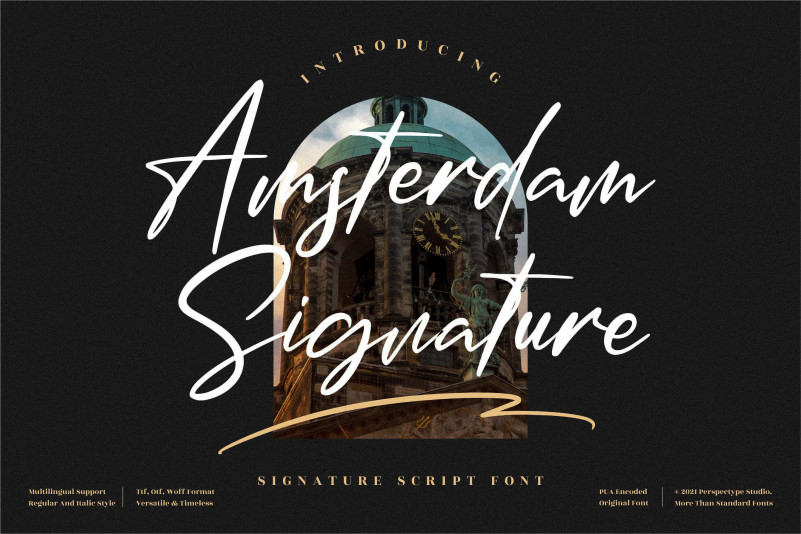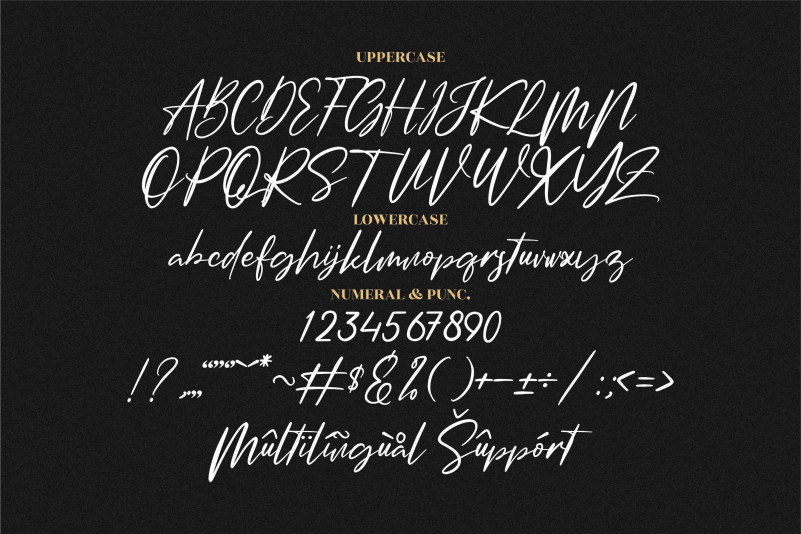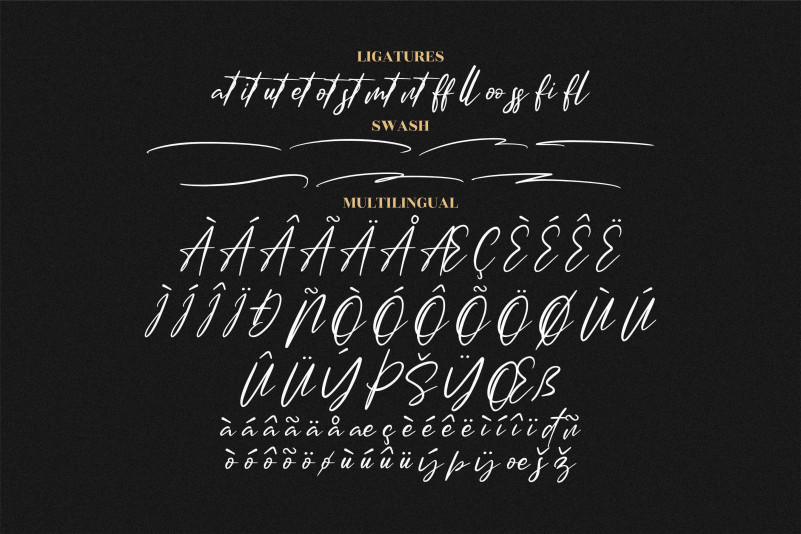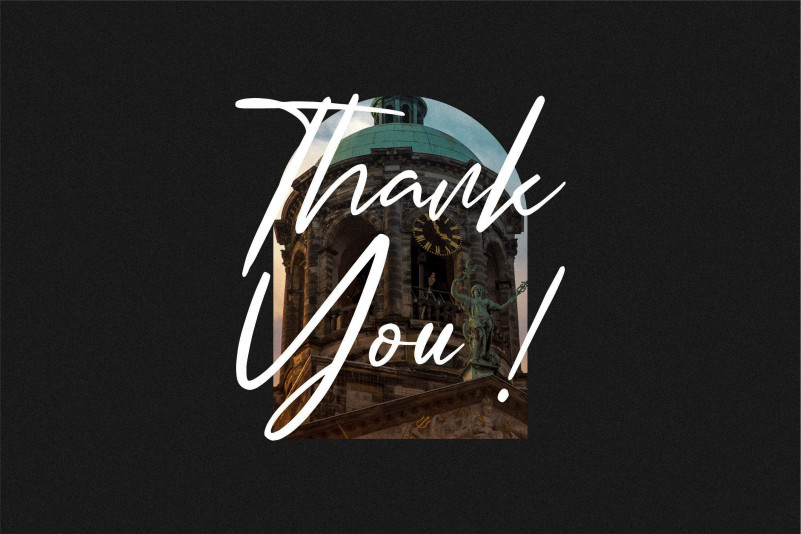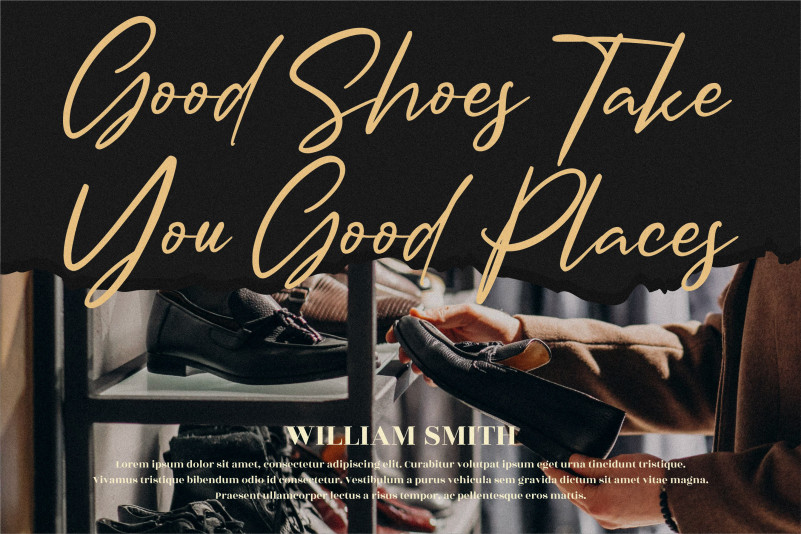
Amsterdam Signature Typeface
Amsterdam Signature Script Typeface
This is a relaxed, asymmetrical and fashionable script font. It can be used for various designs that require a personalized and genuine touch. Add Amsterdam Signature to your fonts’ library and notice how it will elevate each of your creations.